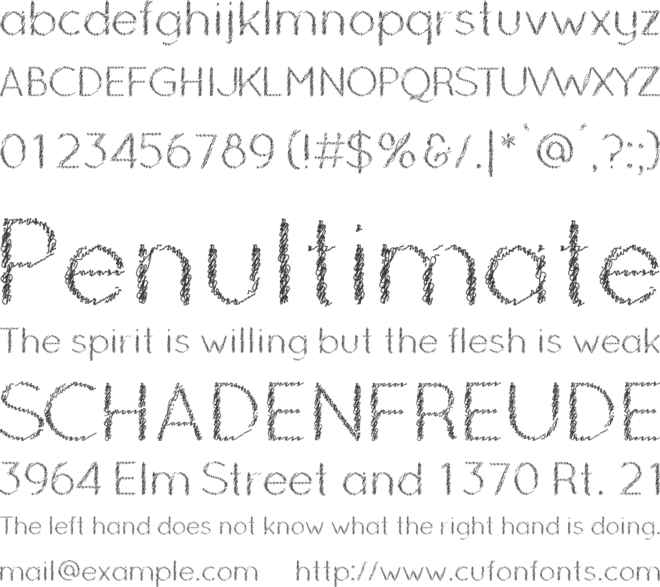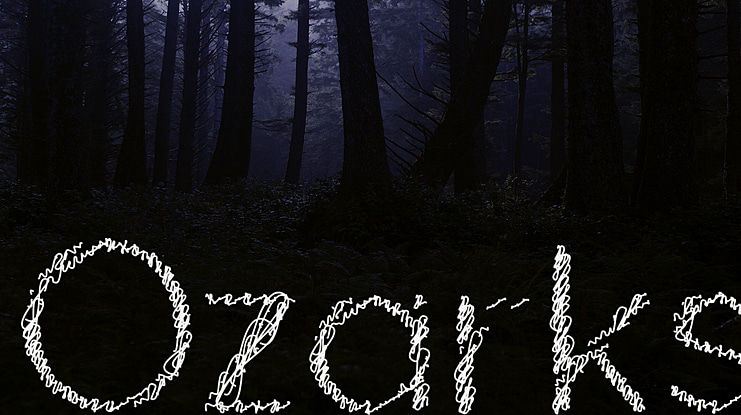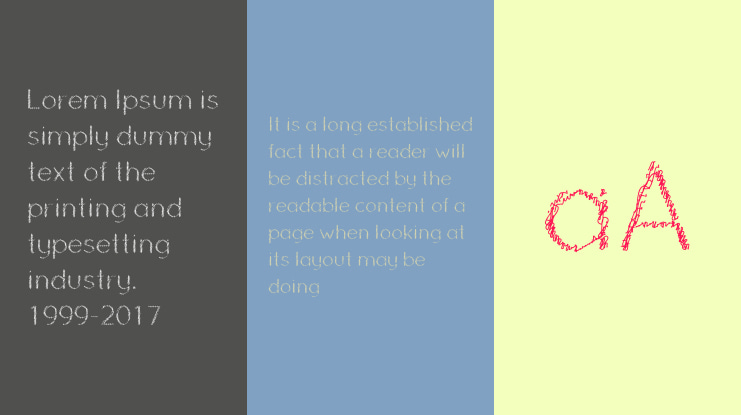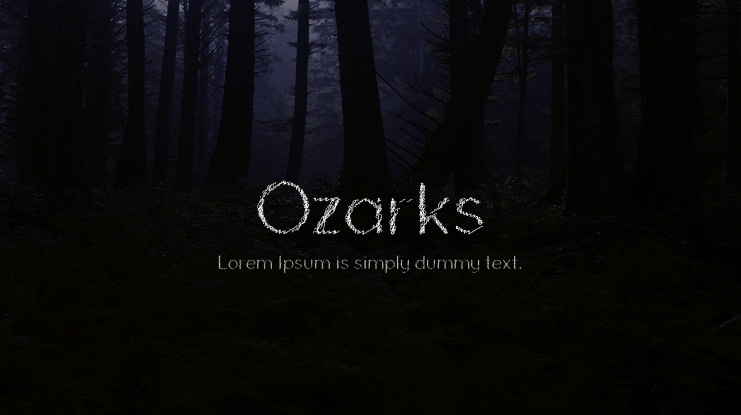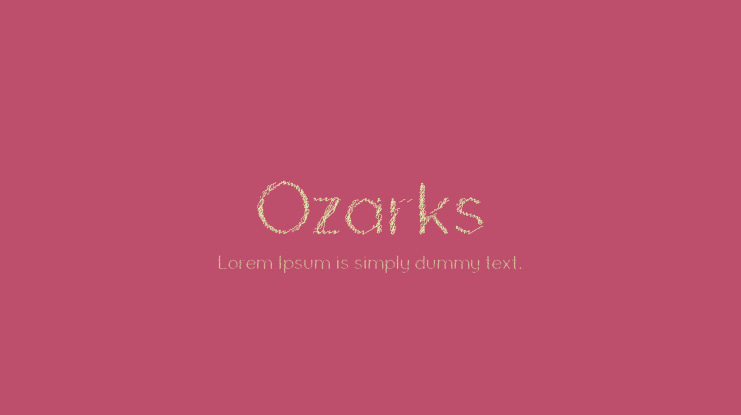
Ozarks Font Family
Louis Dorman
I grew up in the Ozarks mountains of Missouri. A rough handwritten font inspired by a land where generations are fiercely protective of everything they have worked hard for.